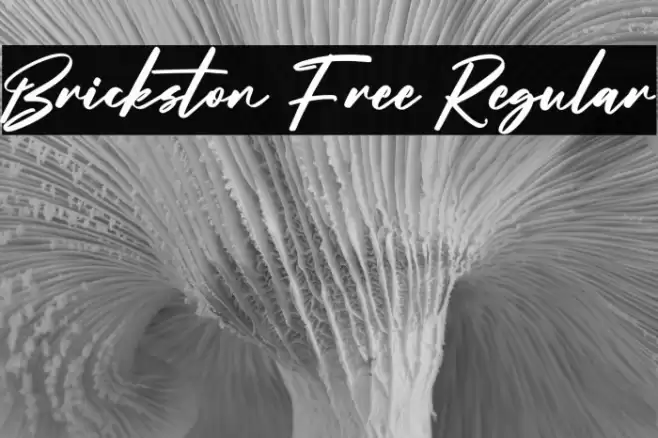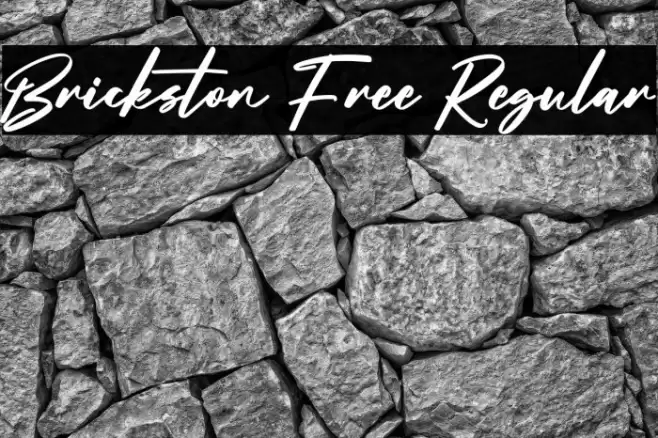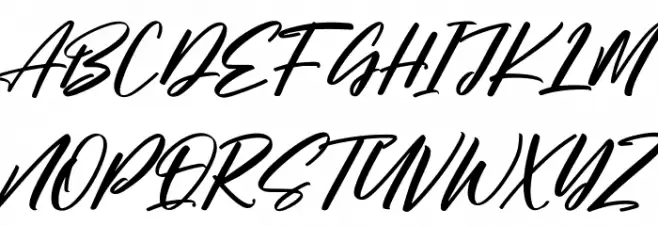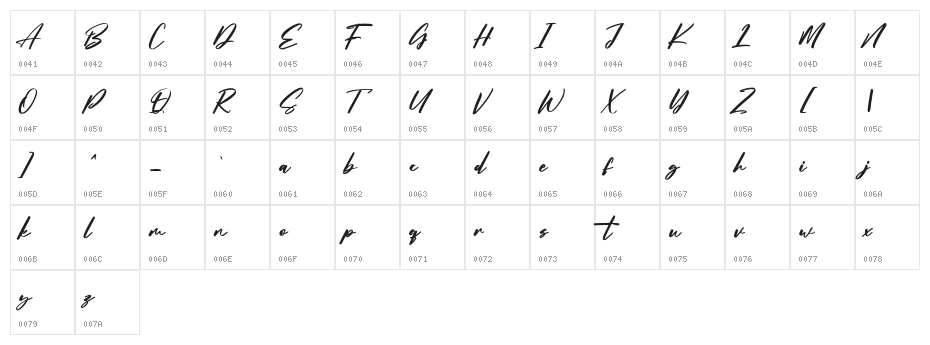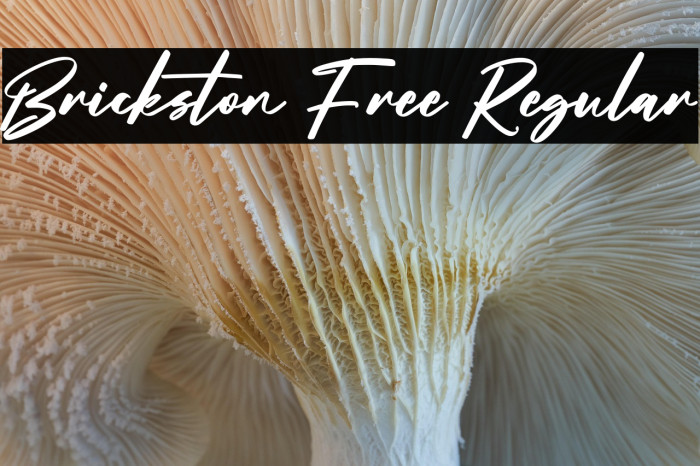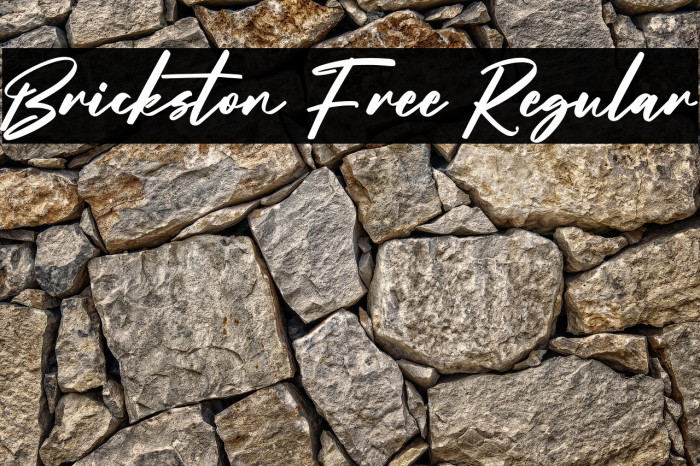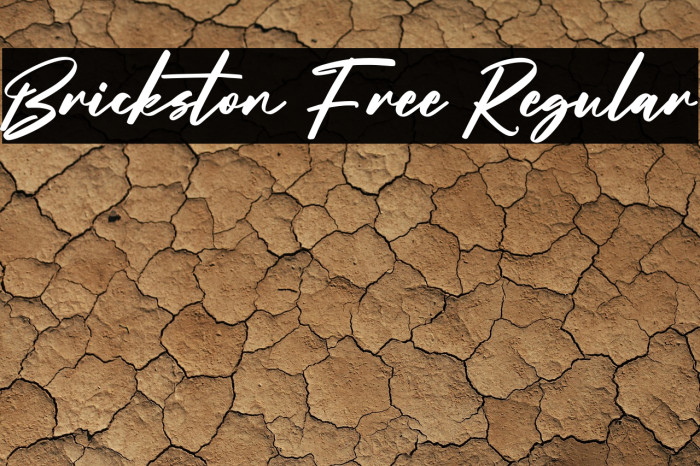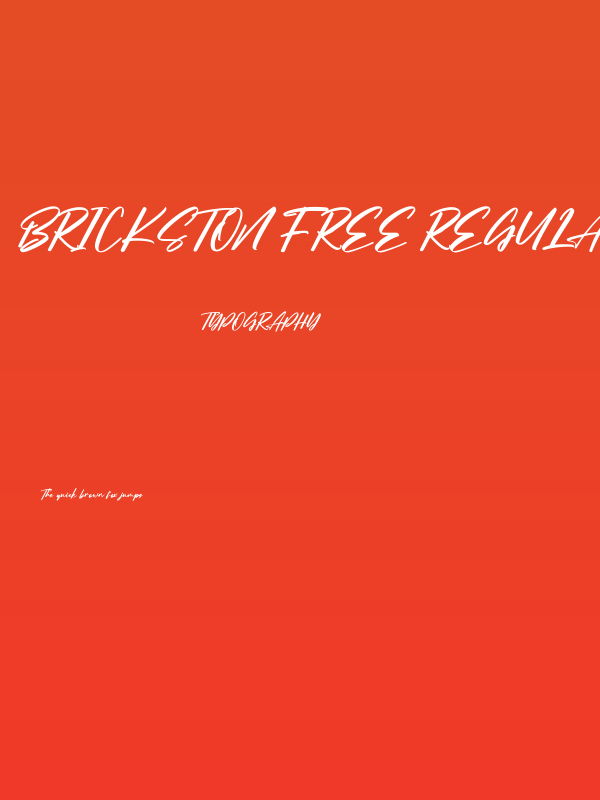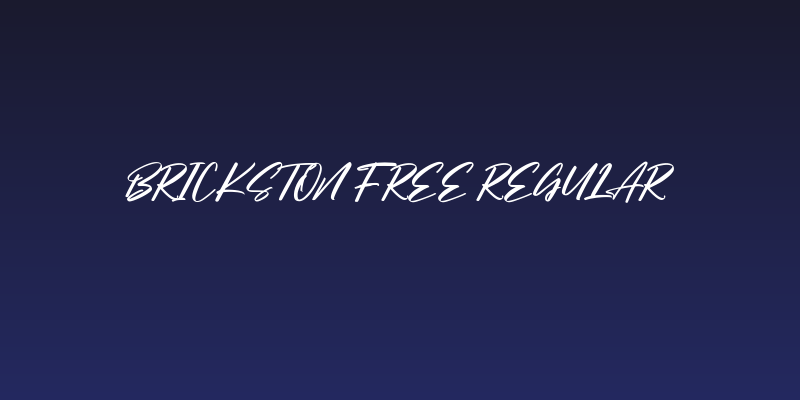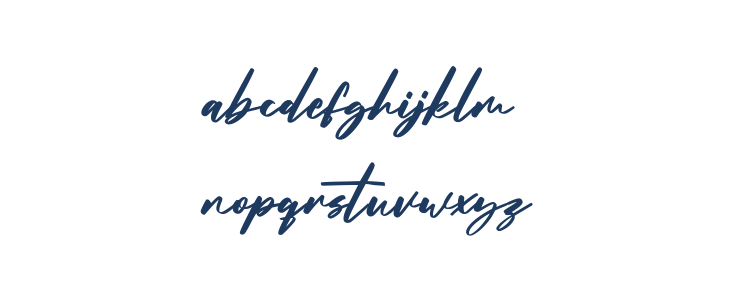
Brickston Free Regular Font
Brickston Free Regular Description
This font features a dynamic and energetic script style, characterized by fluid, sweeping strokes that convey a sense of movement and elegance. The uppercase letters are bold and expressive, with a slight slant that adds to the overall flow. Lowercase letters maintain a consistent style, offering a harmonious blend with the uppercase. The font's design is reminiscent of handwritten calligraphy, with a modern twist that makes it suitable for contemporary designs. The characters are well-spaced, ensuring readability while maintaining an artistic flair. This font is ideal for projects that require a personal touch, such as invitations, branding, and social media graphics.
A dynamic script font with fluid, sweeping strokes and a modern calligraphic style from Regular fonts.
- Proposed Projects: Ideal for invitations, branding, social media graphics, and any project needing a personal touch.
- Use Case: Logos, Headlines, Invitations